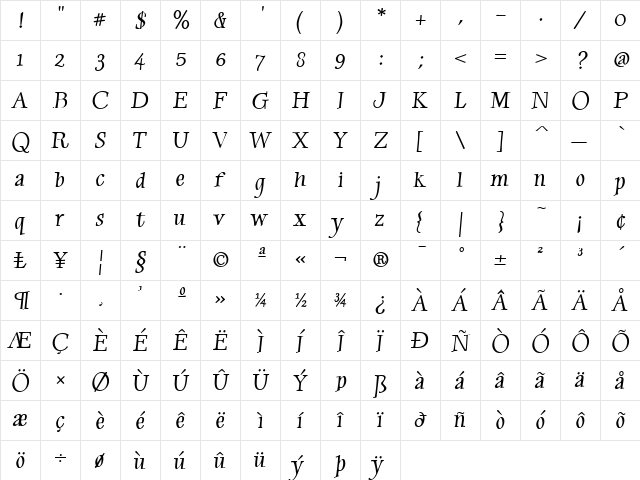
Moonbeam Italic Regular
| Foundry | TYPADELIC FONTS |
| Designer | Ronna Penner |
Design Context for Moonbeam Italic Typeface
Moonbeam Italic offers clean, dependable letterforms without strong stylistic allegiance, making it a practical choice for designers who need flexibility. The dynamic lean of this cut emphasises speed and emphasis in any layout.